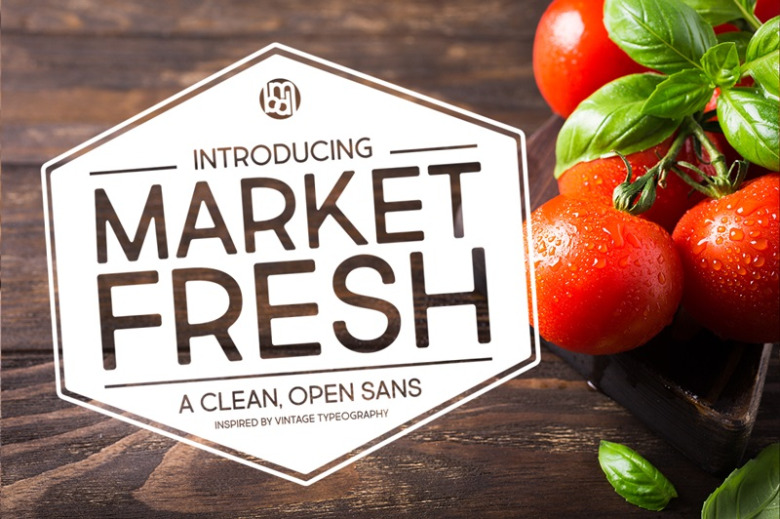
Market Fresh Font Family
Market Fresh Font
Market Fresh Font Family is a set of open, clean sans inspired by old-style retro headlines. Includes over 500+ characters including Latin, Greek, Cyrillic & more.
Originally designed in 2016 as all-caps fonts, The Market Fresh font has been updated and now includes a standard version with lowercase, in addition to the original all-caps versions. The idea behind its creation was to offer a very clean sans font, while still having bits of character here and there.